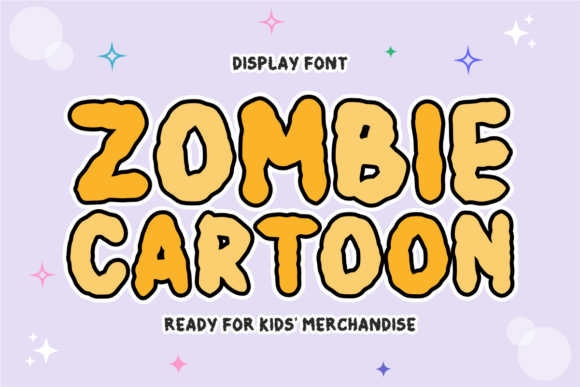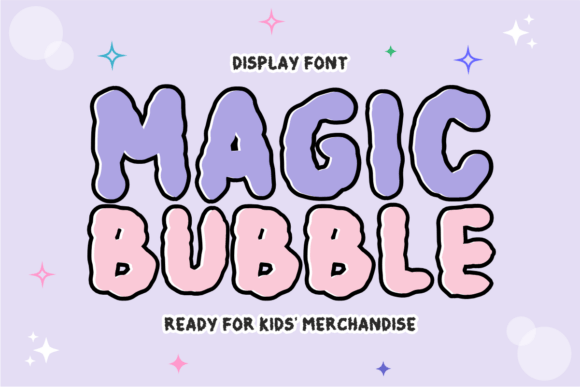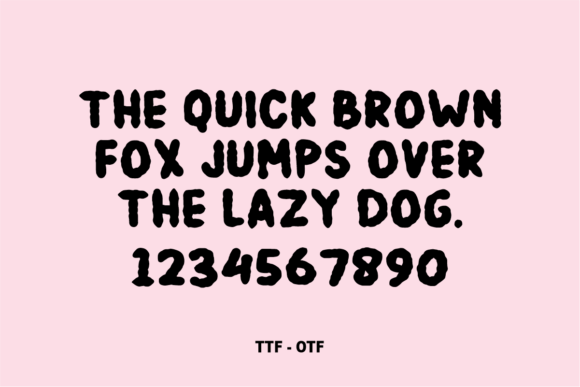
Introduction to Puffy Popcorn Font
Have you ever been working on a design project and felt like it’s missing that extra special something to make it truly pop? Maybe you’re creating a t-shirt design for a kids’ birthday party or crafting a set of engaging classroom worksheets. Whatever your creative project may be, you’re in luck because we’ve got just the thing to bring your design to life – the Puffy Popcorn Font!
This wonderfully thick, bubbly, and incredibly joyful display font is designed to bring the ultimate happy vibes to your canvas. With its friendly, energetic appearance, Puffy Popcorn Font is the perfect choice for any design centered around children, classrooms, sweet celebrations, or lighthearted branding. Whether you’re a seasoned designer or a crafty enthusiast, this high-quality font is a valuable resource that’s sure to elevate your designs and make them stand out from the crowd.
Key Features of Puffy Popcorn Font
- Unique, playful design perfect for creative projects and adding a fun touch to any design resource.
- Distinctive, rounded edges and bubbly texture give the Puffy Popcorn Font a one-of-a-kind look that sets it apart from other fonts.
Honest Review: Puffy Popcorn Font
As a designer, I’m always on the lookout for high-quality design resources to enhance my creative projects. Recently, I had the chance to try out the Puffy Popcorn Font, and I must say it’s a delightful addition to my design arsenal.
What works well: ✨ The font is incredibly versatile and comes in a range of weights and styles, making it perfect for both digital and print designs. The transparent background is a nice touch, allowing for seamless integration with any design.
- High-quality design: The font is well-designed and looks professional, even at small font sizes.
However, there are some limitations: ⚠️ The font may not be suitable for use in logos or branding due to its playful nature. Additionally, the font can be quite busy, so it’s essential to use it thoughtfully in your designs.
Overall, I’m impressed with the Puffy Popcorn Font. Its unique design and versatility make it a valuable addition to any designer’s toolkit. If you’re looking for a fun and creative font to add some personality to your designs, the Puffy Popcorn Font is definitely worth checking out.
Tips for Getting the Most Out of Puffy Popcorn Font
To get the most out of the Puffy Popcorn Font, use it in conjunction with a transparent background to create a high-quality design. You can also experiment with different font sizes and styles to create a unique look.
The Puffy Popcorn Font is ideal for creative projects, such as invitations, flyers, and brochures. It’s also a great design resource for social media graphics and web design projects.